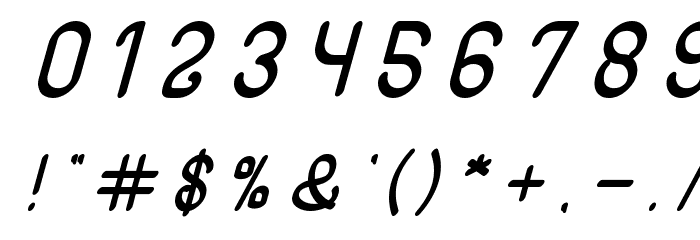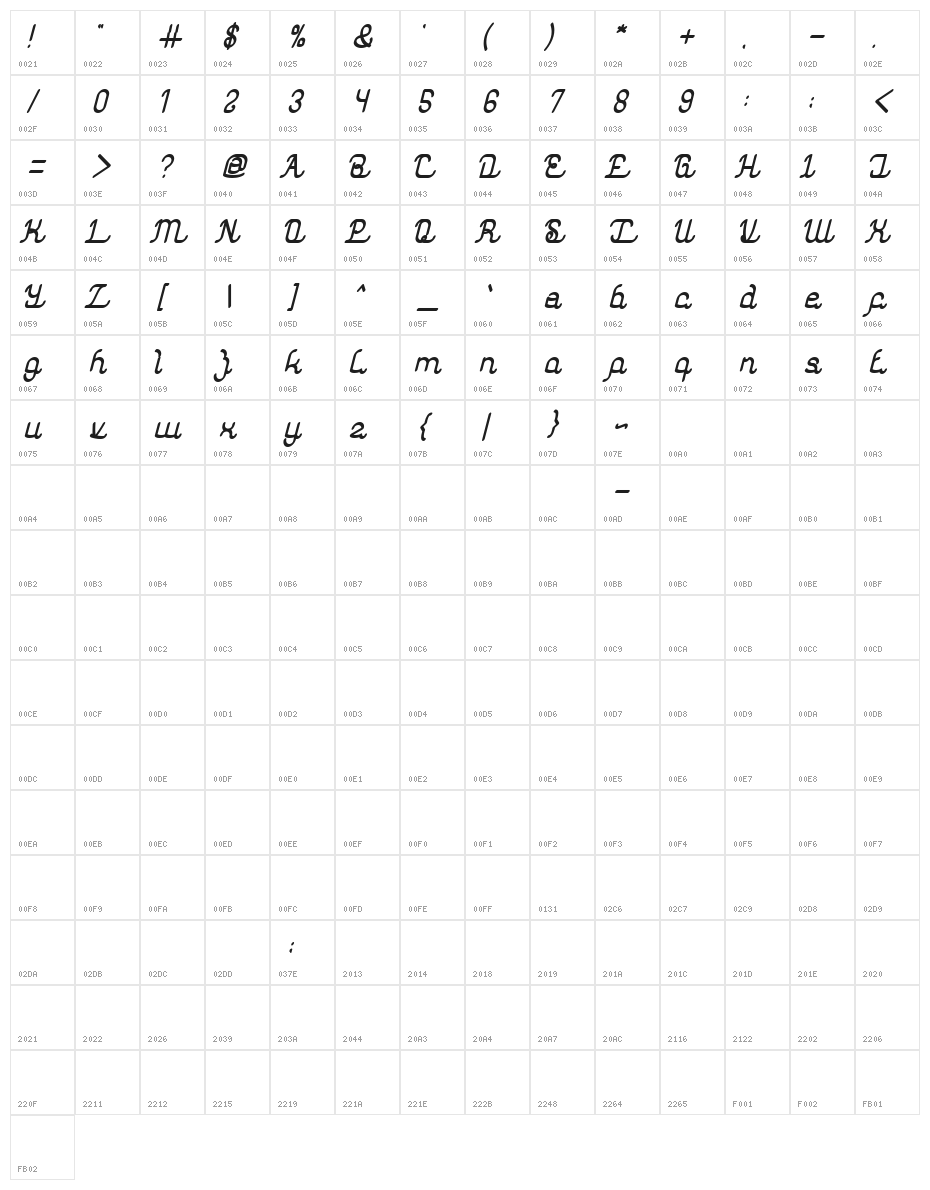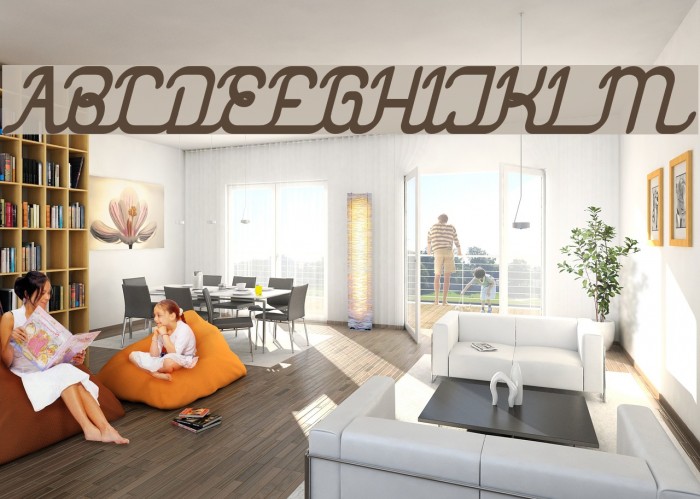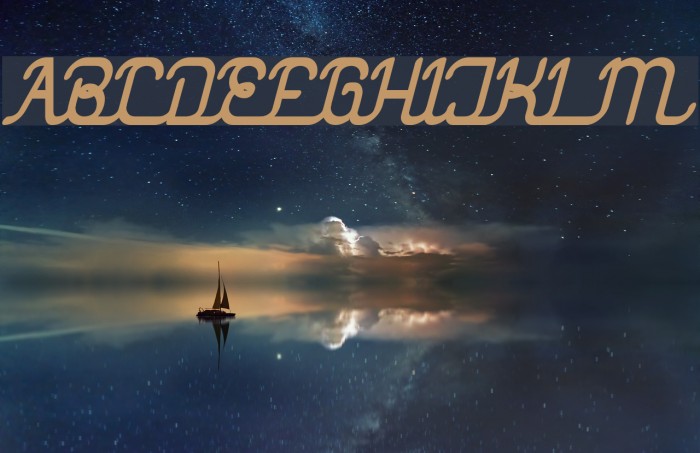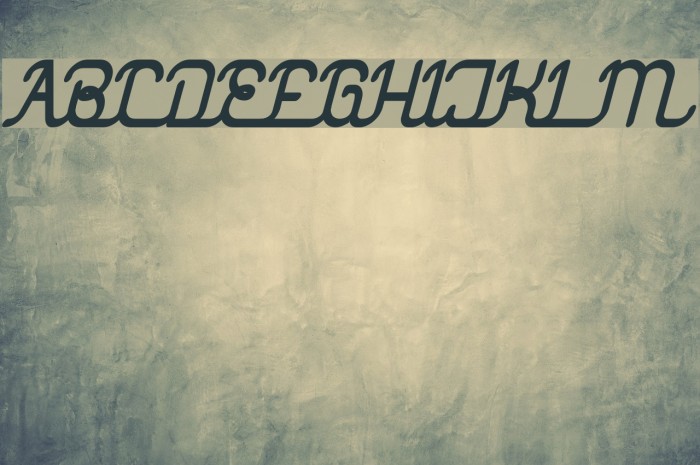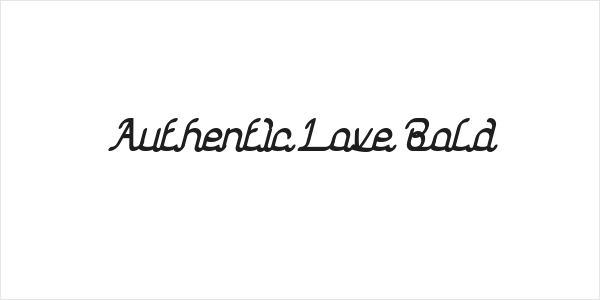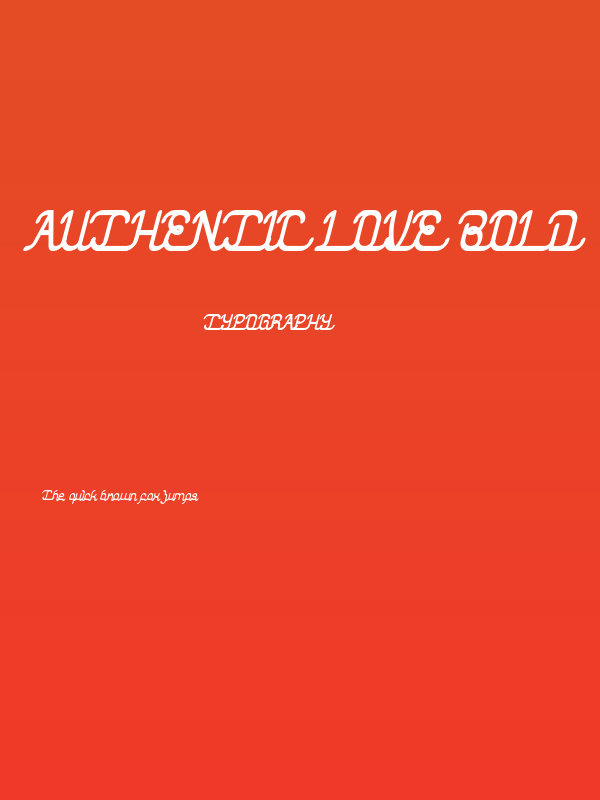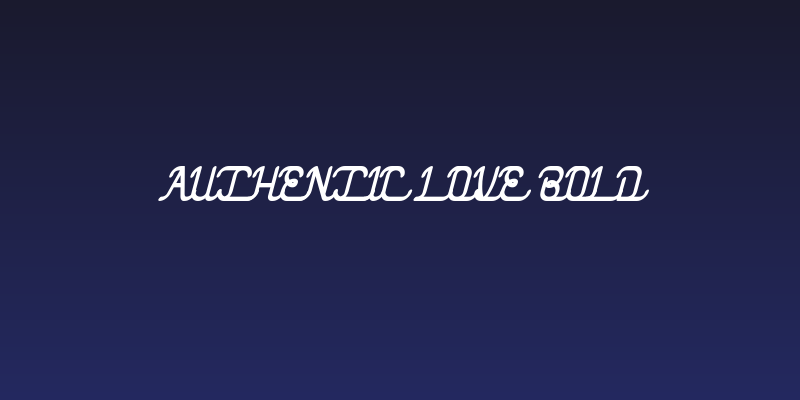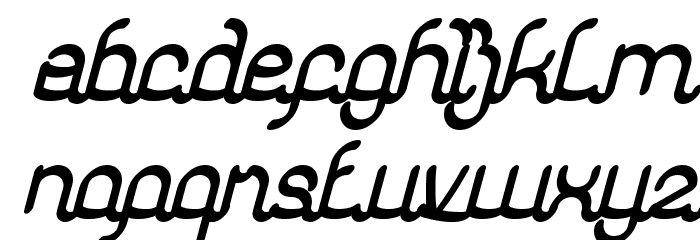
Authentic Love Bold Font
Authentic Love Bold Description
This font features a bold, cursive style with a flowing, interconnected script that exudes a sense of elegance and sophistication. The uppercase letters are slightly more structured, maintaining a balance between readability and artistic flair. The lowercase letters are more fluid, with smooth curves and loops that enhance the script's graceful appearance. The numerals are consistent with the overall style, offering a cohesive look. Special characters are included, maintaining the same bold and flowing characteristics. This font is ideal for creating a romantic or elegant atmosphere in design projects.